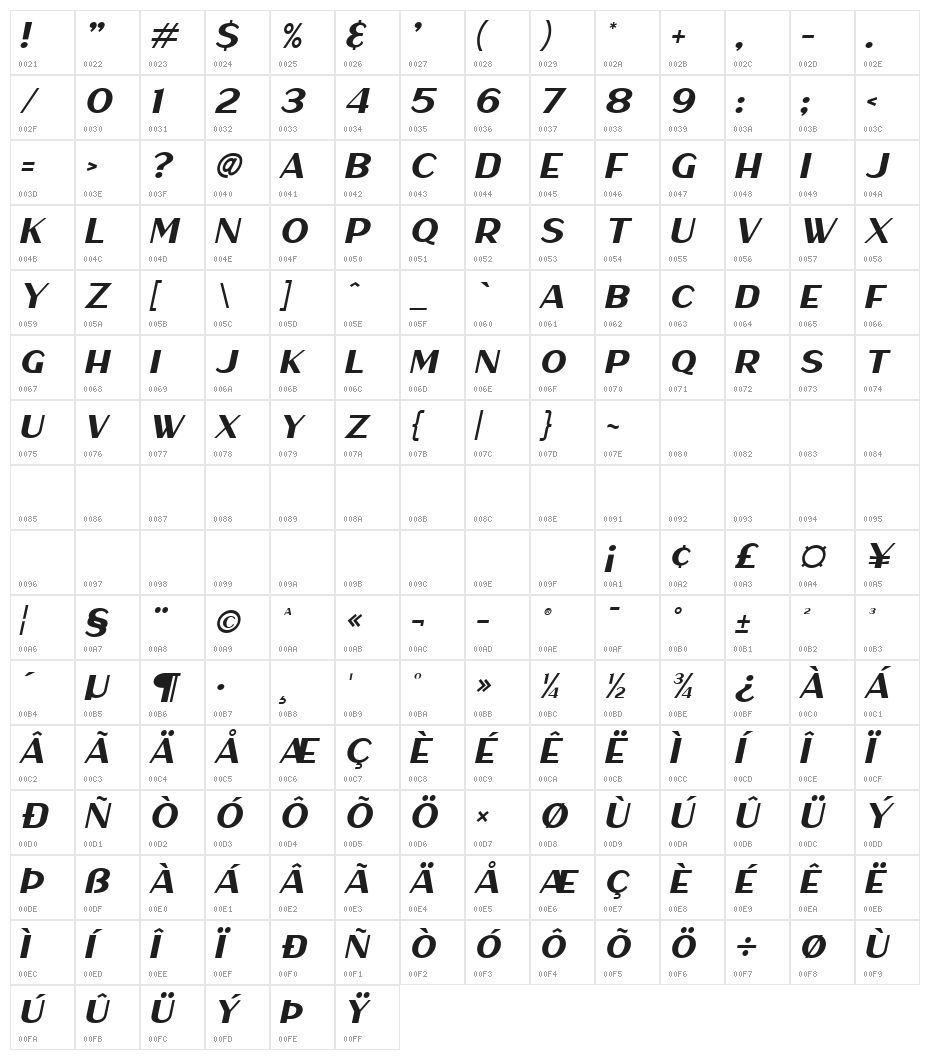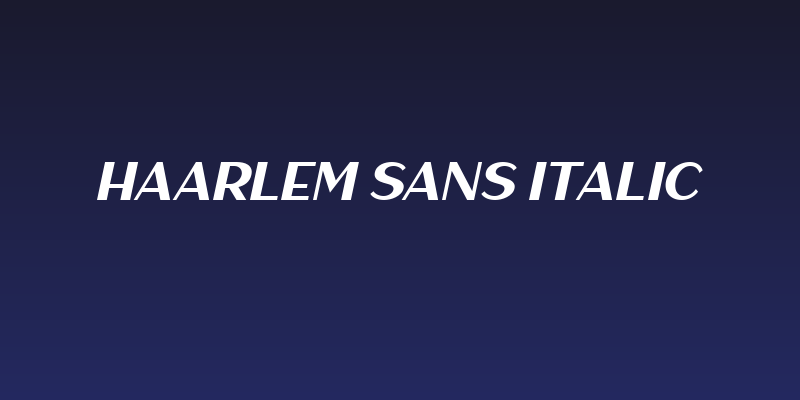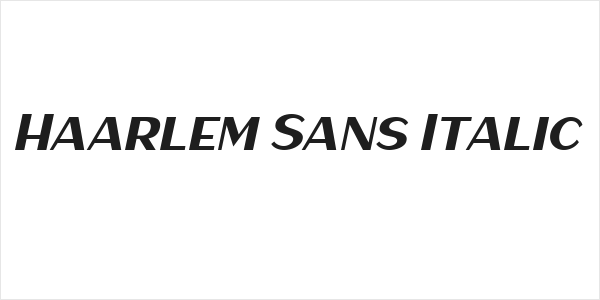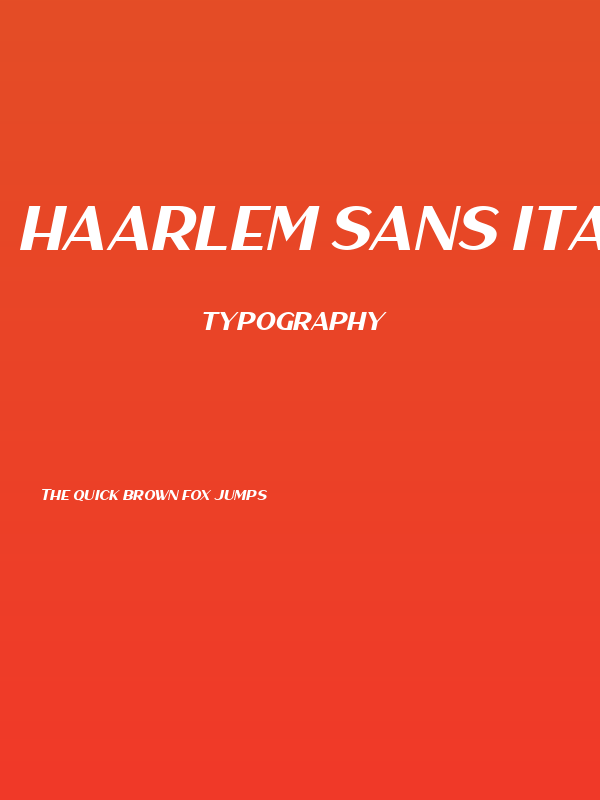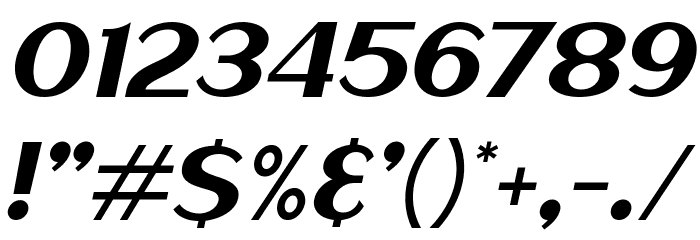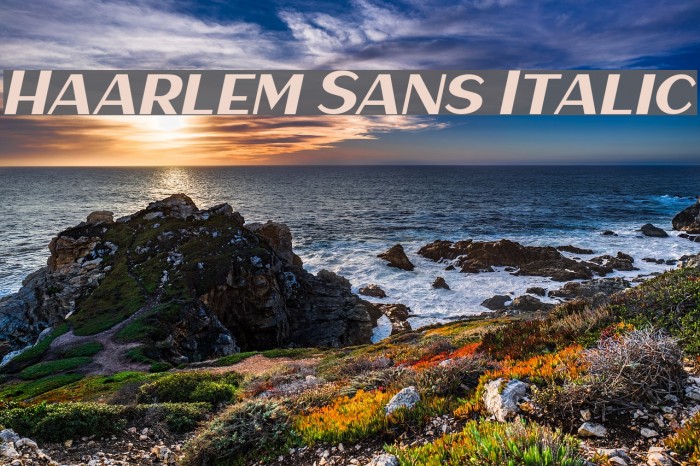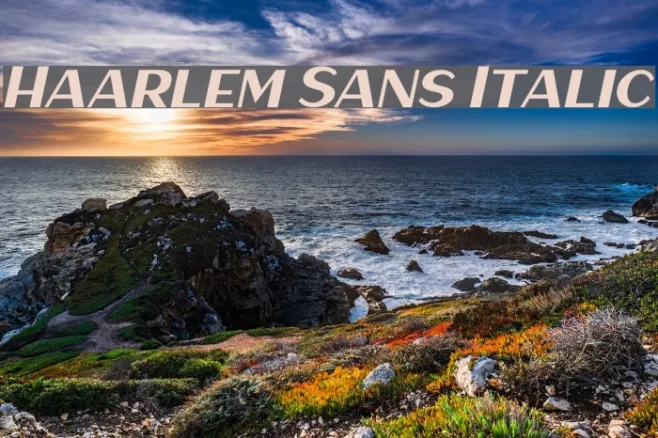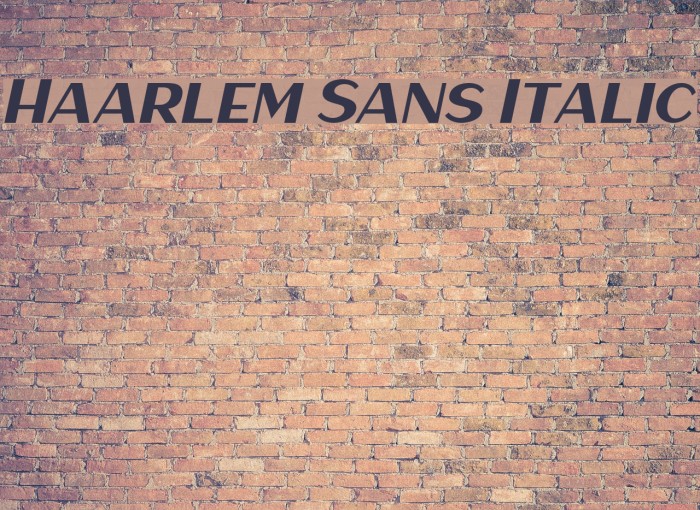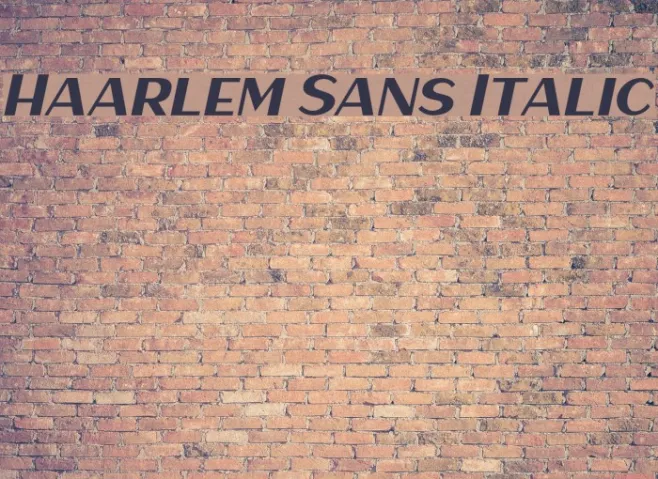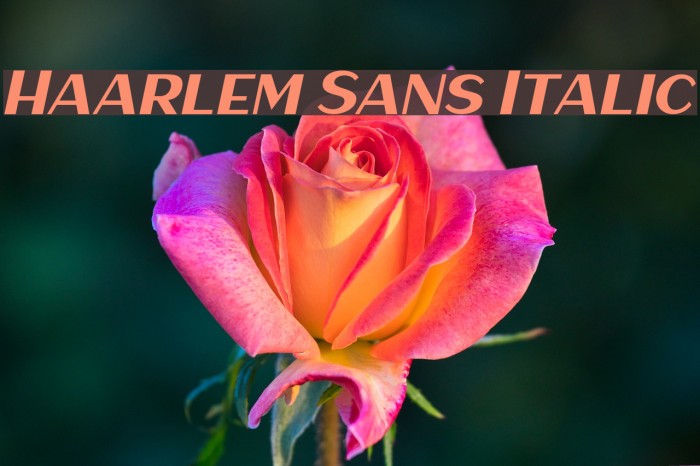
Haarlem Sans Italic Font
Haarlem Sans Italic Description
This font exhibits a sleek and modern sans-serif style with a distinct italic slant, giving it a dynamic and forward-moving appearance. The characters are clean and streamlined, with consistent stroke widths that provide a uniform look across all letters and numbers. The uppercase and lowercase letters maintain a harmonious balance, while the numerals are easily distinguishable. Special characters are well-integrated, enhancing the font's versatility. The overall design is both professional and approachable, making it suitable for a wide range of applications.
| Use Case | Headlines, Body text, Logos |
| Proposed Projects | Ideal for branding, advertising, and editorial design, as well as digital interfaces and signage. |